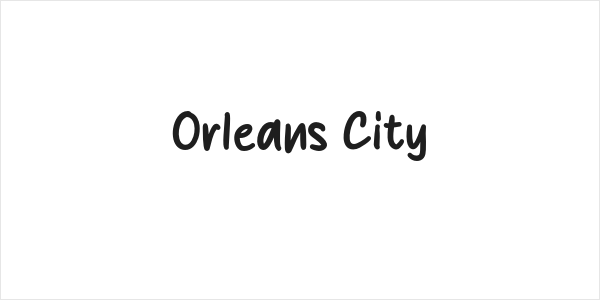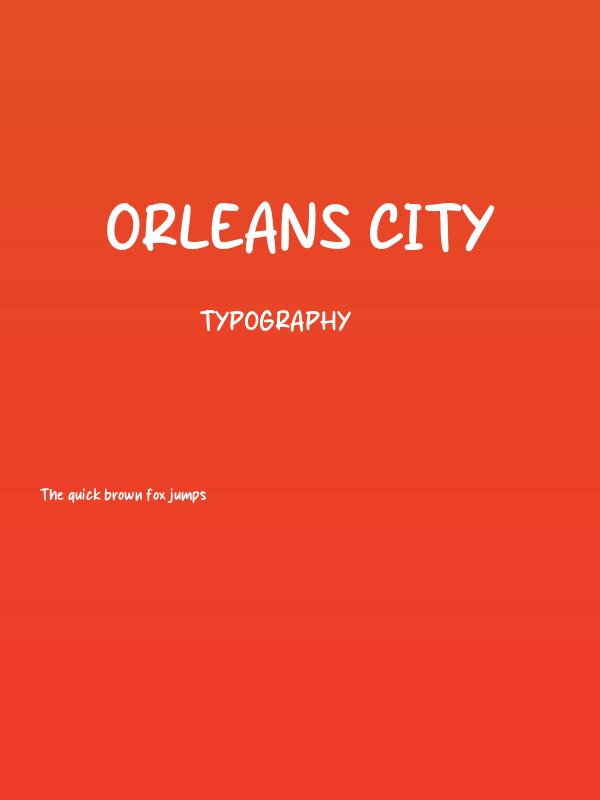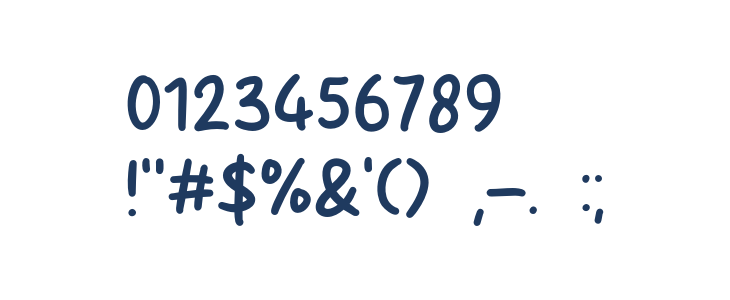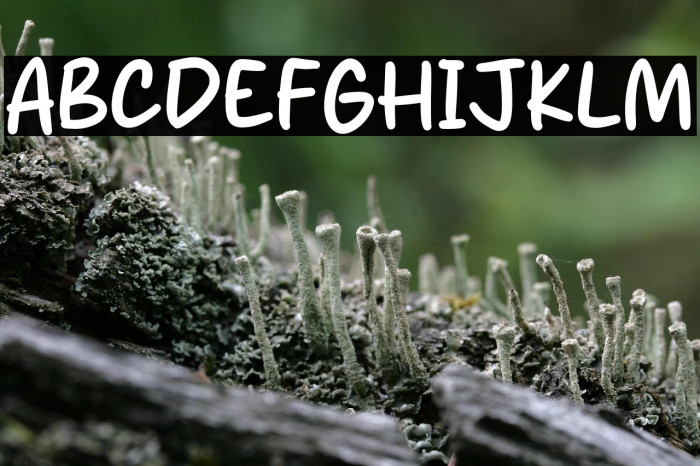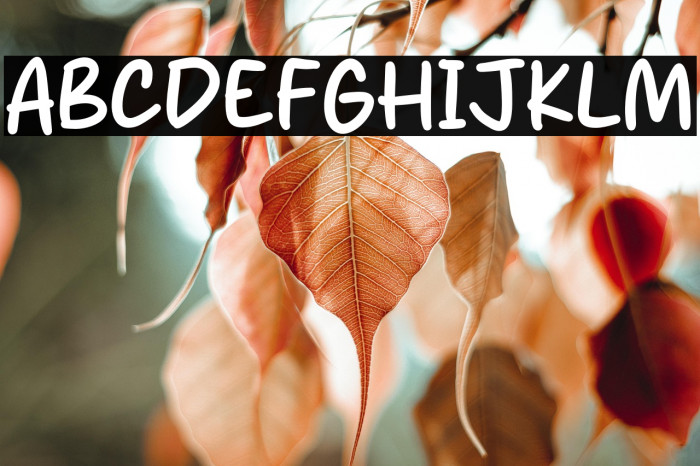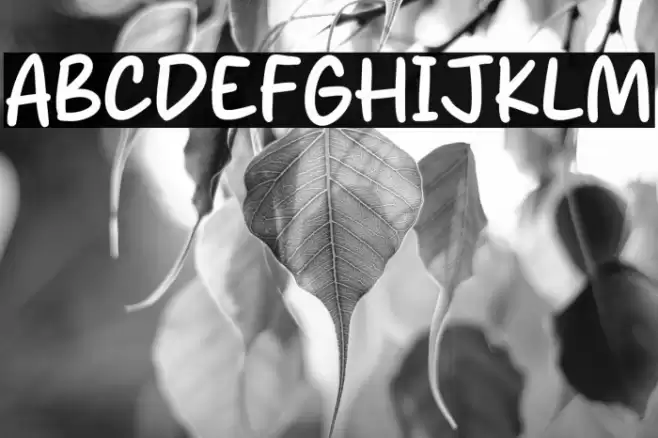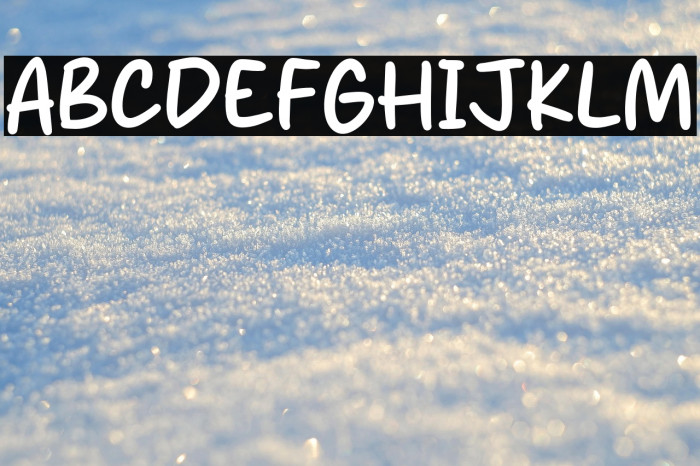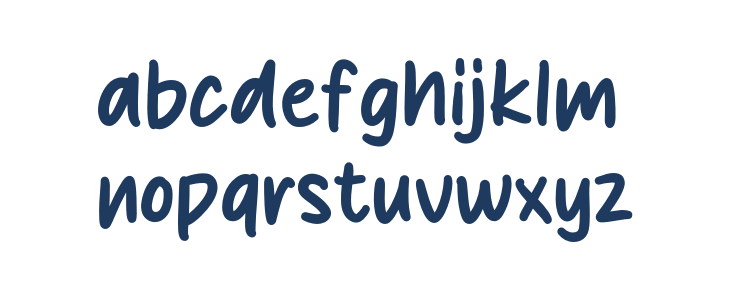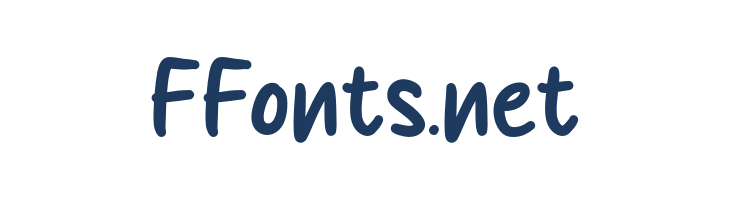
Orleans City Font
Orleans City Description
This font exudes a playful and casual handwritten style, characterized by its rounded and slightly irregular letterforms. The strokes are bold and consistent, giving it a friendly and approachable appearance. The uppercase and lowercase letters maintain a cohesive look, with the lowercase letters slightly more rounded. Numbers and special characters are designed to match the overall informal aesthetic, making them easily readable while retaining the font's unique charm. The font's style is versatile, suitable for projects that require a personal touch or a relaxed vibe.
| Proposed Projects | Ideal for greeting cards, children's books, casual branding, and social media graphics. |